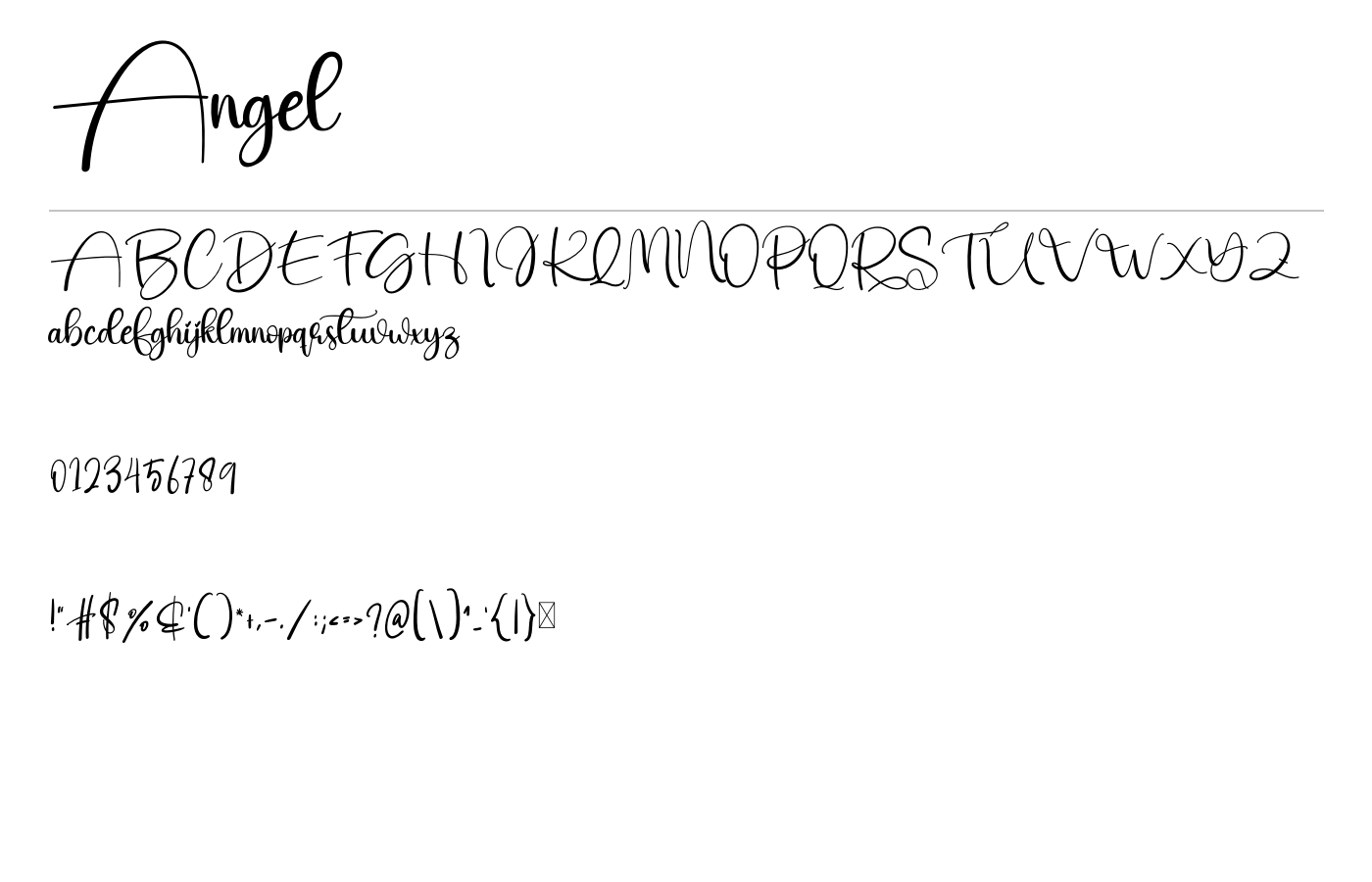
Angel Font is a delicate, handwritten script featuring a graceful, flowing style with a light weight and tall, narrow letterforms. Its calligraphic strokes and playful curves give it an elegant yet approachable personality, making it ideal for invitations, branding, and projects that seek a personal, artistic touch. This font works beautifully in headlines or decorative text where charm and sophistication are desired.
Angel Font
About Angel Font